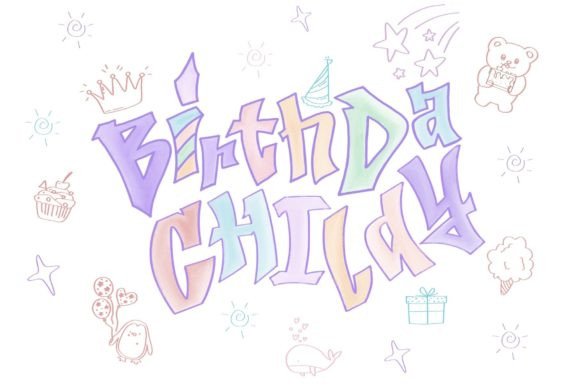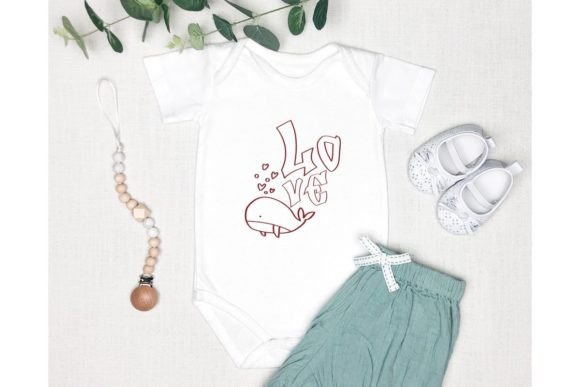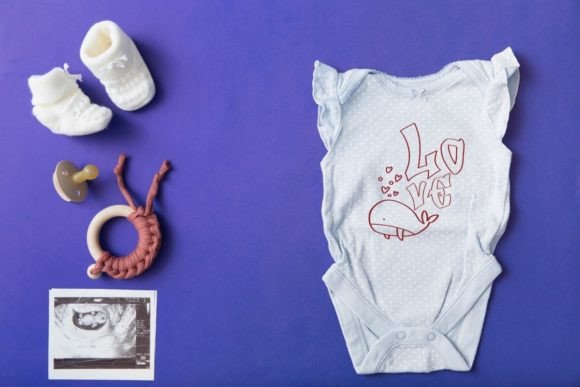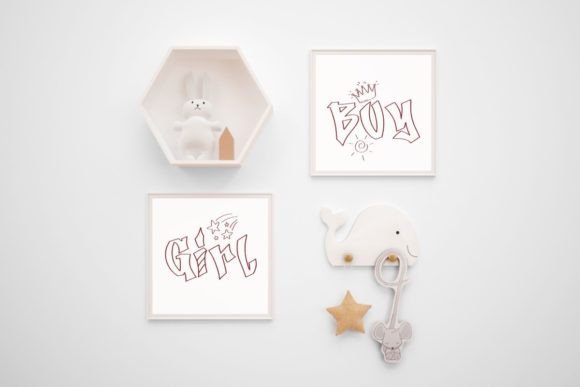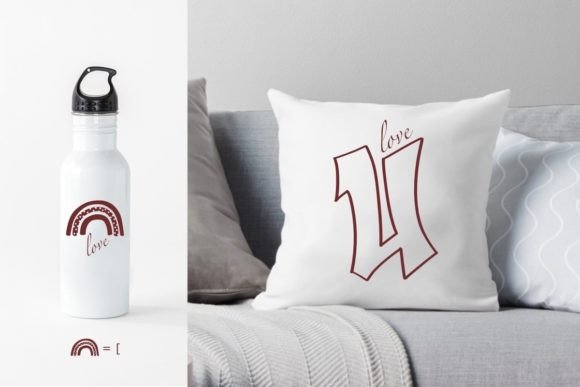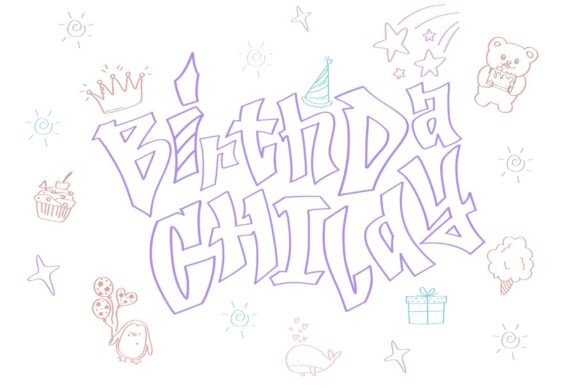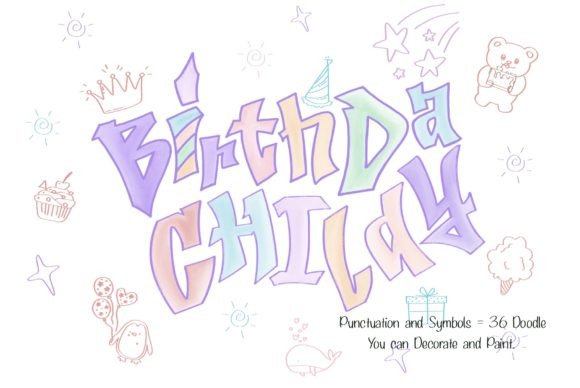
Introducing Birthday Child Font: The Perfect Addition to Your Creative Projects
Are you a designer, crafter, or DIY enthusiast looking for a unique and playful font to add a personal touch to your creations? Look no further than the Birthday Child Font! This handwritten display font is perfect for a wide range of projects, from logos and branding to wedding invitations, business cards, and more.
What is Birthday Child Font?
Birthday Child Font is a carefully crafted handwritten display font that exudes a sense of fun, playfulness, and innocence. Its unique and irregular style makes it perfect for designs that require a personal and whimsical touch. The font is highly versatile and can be used for a variety of creative projects, including:
- Wedding invitations and greeting cards
- Business cards and stationery
- Posters, magazines, and social media graphics
- Planner prints and journals
- Websites and digital products
Why is Birthday Child Font Perfect for Children’s Designs?
As the name suggests, Birthday Child Font is especially useful for children’s designs, including:
- T-shirts and kids’ apparel
- Mugs and water bottles
- Posters and flyers for kids’ events
- Children’s books and educational materials
The font’s playful and youthful style makes it an excellent choice for designs that require a fun and kid-friendly approach. The font’s irregularities and quirks give it a hand-drawn feel that children will love.
How to Use Birthday Child Font in Your Designs
- Use it as a headline font to add a pop of personality to your design
- Pair it with other fonts to create a unique and interesting contrast
- Experiment with different colors and textures to give your design a personalized touch
Benefits of Using Birthday Child Font
- Unique and eye-catching: The font’s irregular style makes it stand out from more traditional fonts
- Highly versatile: Use it for a wide range of projects, from logos to websites
- Easy to read: Despite its playful style, the font is highly legible and easy to read
- Perfect for kids’ designs: The font’s youthful style makes it an excellent choice for children’s designs
| Font Name | Birthday Child Font |
| Author | PeamCreations |
In conclusion, Birthday Child Font is a unique and versatile handwritten display font that is perfect for a wide range of creative projects. Its playful and youthful style makes it especially useful for children’s designs, but it’s also highly versatile and can be used for logos, branding, wedding invitations, and more. So why not add Birthday Child Font to your favorite creative ideas and see how it brings them to life?